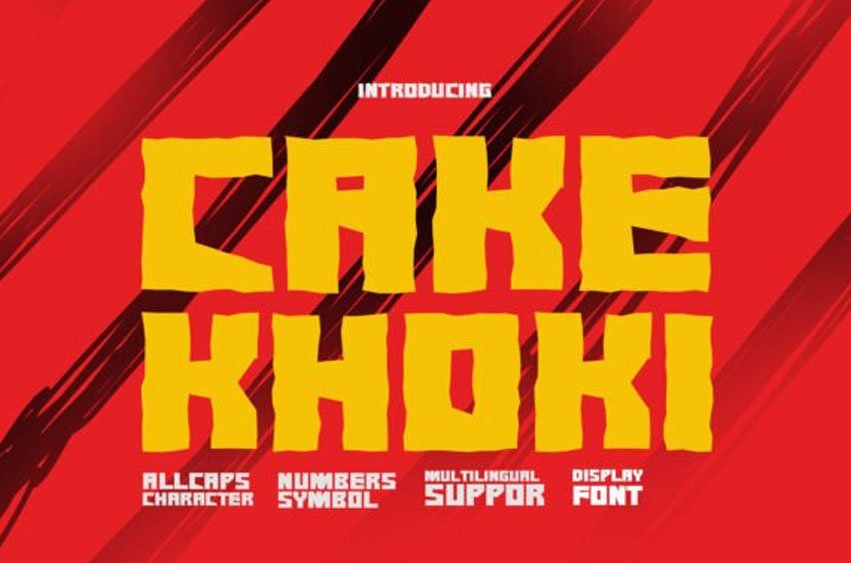
Cake Khoki Font is a bold and playful font that makes your text stand out.
Perfect for fun posters, invitations, and creative projects, its lively letters add a cheerful and eye-catching touch to any design.